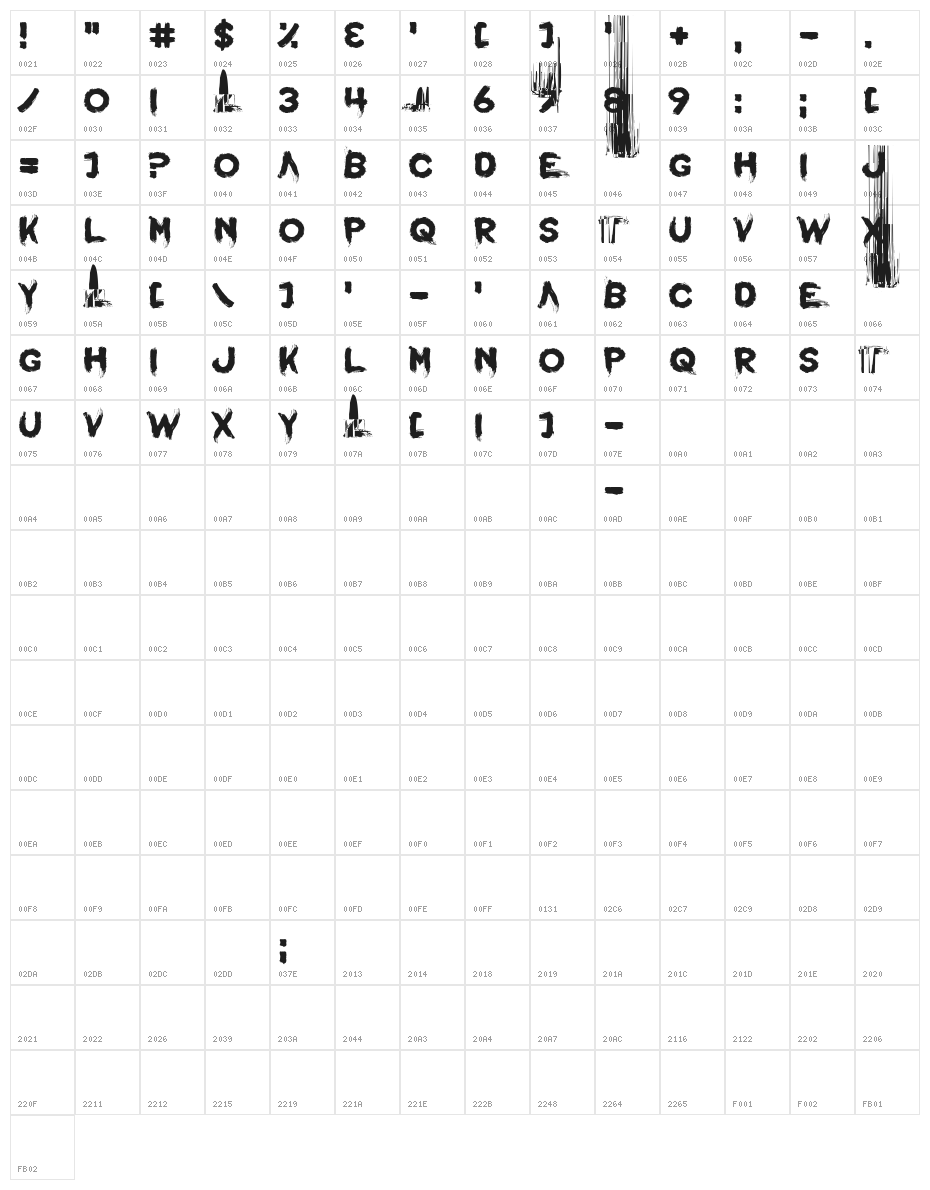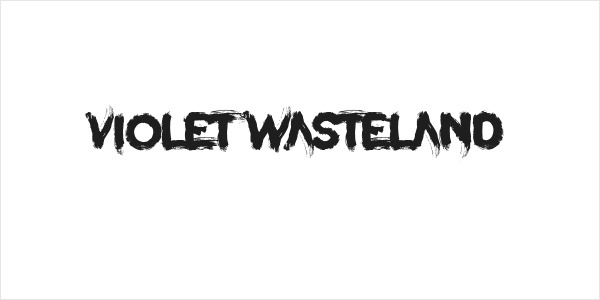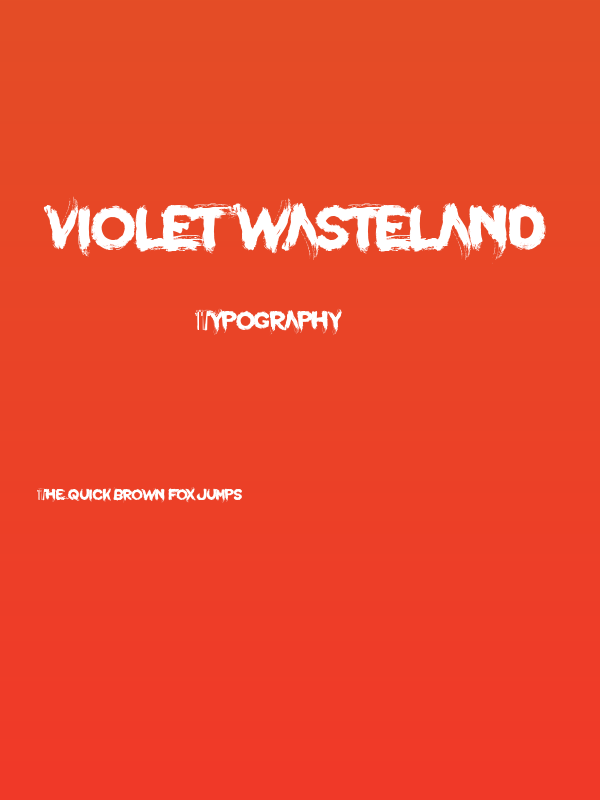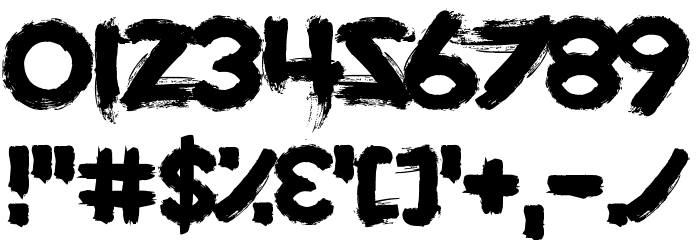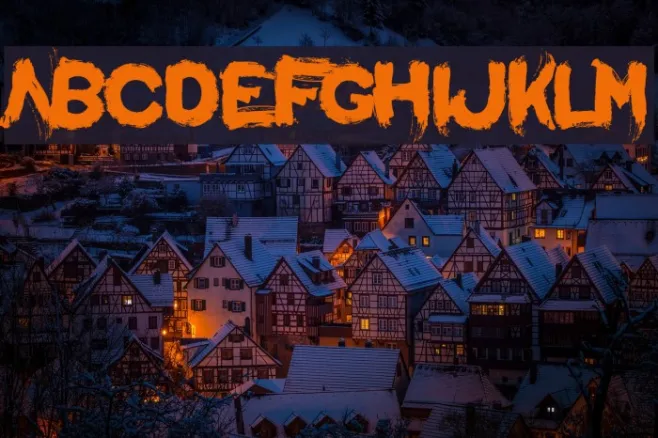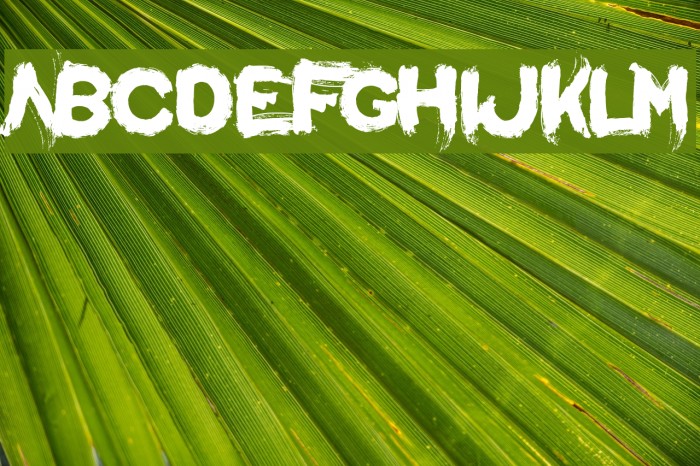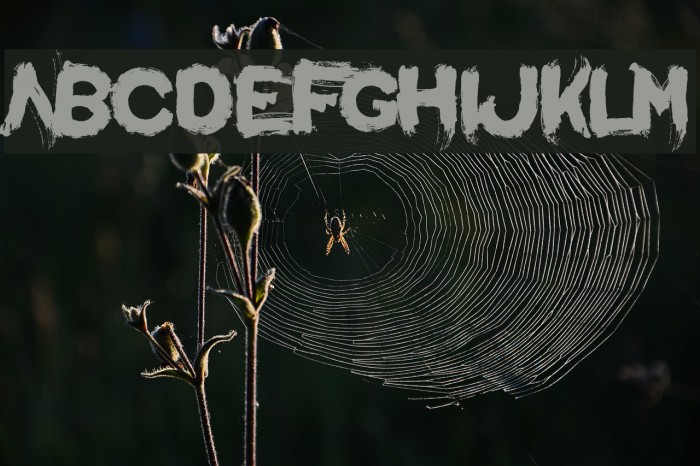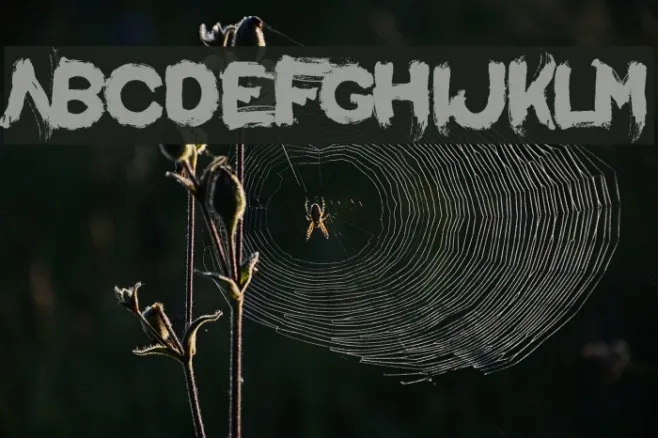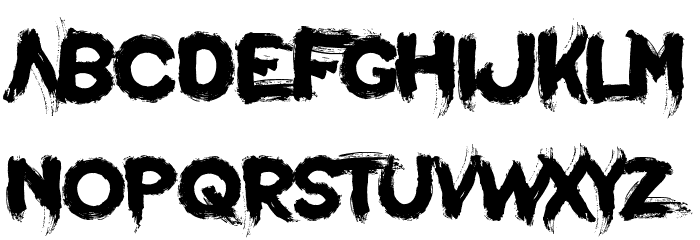
Violet Wasteland Font
✎ Thick
| Estilo general | Modern, Artistic |
| Proyectos propuestos | Ideal for posters, album covers, street art designs, and any project needing a bold, artistic touch. |